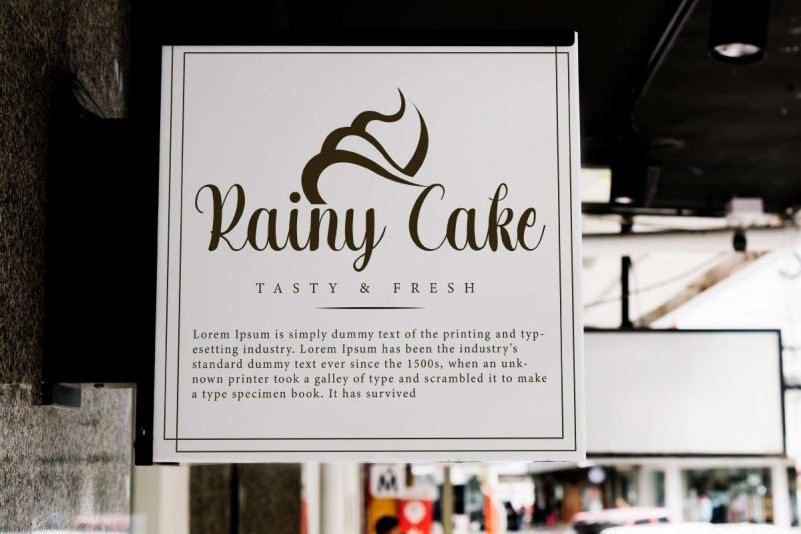
Rainy Cake Font
Rainy Cake Script Font is a sweet script font inspired when baking cake and created by EdricStudio. This font is perfectly crafted that delivers balanced thickness and thinness and easy to read making it suitable for any industry, such as advertisement, bakery, café, cake, cooking, event organizer, homeware, nutritional health, pastry, restaurant, snack, and anything that requires something flawless of script type.
Rainy Cake Font comes with a full set of Uppercase and Lowercase Basic Characters, Number, a large range of Punctuation and Symbol. Also the addition of beautiful ligature characters keeps this font bound naturally and makes your designs stand out. It has a stunning characters set, perfectly managed with well spaced and kerning. Rainy Cake Font will be great for any projects (with extended license) including : labels, menu, mockup design, signage, watermark, website, etc.